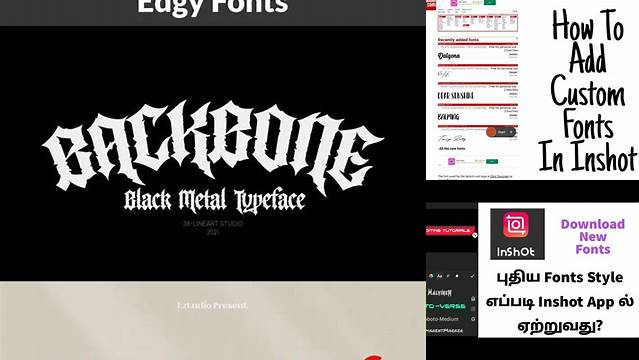
Cool Fonts For InShot: Level Up Your Videos!
InShot is a fantastic mobile video editing app that lets you create stunning content right from your phone. But let's be real, the default fonts can sometimes feel a bit… basic. To truly make your videos stand out, choosing the right fonts for InShot is key. Picking the perfect font can drastically change the mood and impact of your videos. Whether you're going for sleek and modern, fun and playful, or something totally unique, the right typeface is out there waiting to be discovered. So, let’s dive into how to find, add, and use awesome fonts in InShot to give your videos that extra oomph! You want your videos to pop, right? Of course, you do! So let's explore the world of fonts and how they can transform your InShot projects.
Understanding Font Types for Video Editing
Understanding the different font types is crucial when selecting fonts for InShot. Different fonts evoke different feelings and are suitable for various video styles. Serif fonts, like Times New Roman, have small decorative strokes (serifs) at the end of each letter. These often convey a sense of tradition, authority, or elegance. They're great for formal videos or when you want to add a touch of sophistication. Sans-serif fonts, such as Arial or Helvetica, lack these serifs and have a cleaner, more modern look. They're generally easier to read on screens, making them ideal for tutorials, vlogs, or any video where clarity is paramount. Script fonts mimic handwriting and can add a personal, artistic touch. However, use them sparingly as they can be harder to read, especially in smaller sizes. Display fonts are designed to be eye-catching and are perfect for titles or short bursts of text. They come in a wide range of styles, from bold and blocky to quirky and unusual, allowing you to really express your creativity. When choosing fonts for InShot, consider the overall theme of your video and the message you want to convey. The right font can enhance your video's impact and make it more engaging for your audience.
Matching Fonts to Your Video Style
Matching fonts to your video style is an art form that can significantly enhance the overall impact of your InShot videos. The right font can complement your visuals, reinforce your message, and create a cohesive viewing experience. For instance, if you're creating a travel vlog, you might opt for a playful and adventurous font that reflects the excitement of exploration. A handwritten or script font can add a personal touch and make your viewers feel more connected to your journey. On the other hand, if you're producing a professional business presentation, a clean and modern sans-serif font would be a more appropriate choice. It conveys a sense of clarity, authority, and competence. If you're making a cinematic short film, consider using a serif font for titles and credits. Serif fonts often evoke a sense of tradition and sophistication, which can enhance the film's artistic quality. When selecting fonts for InShot, think about the tone and mood of your video. Is it serious, humorous, or informative? Choose fonts that align with these elements. Also, consider the visual elements of your video. Do the colors, graphics, and overall aesthetic complement the font you've chosen? By carefully matching fonts to your video style, you can create a more engaging and visually appealing video that resonates with your audience.
Font Pairing Tips for InShot
Font pairing is a crucial skill to master when working with fonts for InShot. Using multiple fonts in a video can add visual interest and hierarchy, but it's essential to do it right. Poor font pairing can look messy and unprofessional, so here are some tips to help you create harmonious font combinations. The most important rule is to choose fonts that complement each other. Avoid using fonts that are too similar, as this can create a sense of visual monotony. Instead, opt for fonts with contrasting styles. For example, you can pair a bold sans-serif font for headings with a classic serif font for body text. This creates a clear visual distinction between the different elements of your video. Another useful tip is to limit the number of fonts you use. As a general rule, stick to two or three fonts per video. Using too many fonts can make your video look cluttered and confusing. When pairing fonts for InShot, consider the overall tone of your video. If you're creating a fun and playful video, you might use a combination of quirky and whimsical fonts. However, if you're making a professional business video, stick to clean and simple fonts. Use font weights and styles to create visual hierarchy. For example, you can use a bold font for headings and a regular font for body text. You can also use different font sizes to emphasize certain words or phrases. By following these font pairing tips for InShot, you can create visually appealing and professional-looking videos that engage your audience.
Using Bold and Italics Effectively
Using bold and italics effectively can dramatically improve the impact of your fonts for InShot. These simple formatting options can add emphasis, create visual hierarchy, and make your text more readable. Bold text is great for highlighting important keywords, phrases, or calls to action. It draws the viewer's attention to specific parts of your text and makes them stand out. Use it sparingly, though, as too much bold text can be overwhelming and lose its impact. Italic text, on the other hand, is often used to add emphasis to certain words or phrases, to indicate titles of books or movies, or to distinguish foreign words. It can also be used to create a sense of elegance or sophistication. When using bold and italics in fonts for InShot, consider the overall tone of your video. If you're creating a serious or professional video, use these formatting options sparingly and only when necessary. However, if you're making a fun or playful video, you can be more liberal with your use of bold and italics. It's also important to maintain consistency. Use the same formatting options throughout your video to create a cohesive and professional look. Avoid using bold and italics randomly, as this can make your text look messy and unprofessional. By using bold and italics effectively, you can enhance the readability and visual appeal of your fonts for InShot, making your videos more engaging and impactful.
Choosing the Right Font Size in InShot
Choosing the right font size is crucial when using fonts for InShot. Text that is too small can be difficult to read, while text that is too large can be overwhelming and distracting. The ideal font size depends on several factors, including the screen size, the font style, and the amount of text you're displaying. As a general rule, use a font size that is large enough to be easily read on a mobile device, but not so large that it dominates the screen. When selecting fonts for InShot, consider the context in which your text will be displayed. If you're creating a title or heading, you can use a larger font size to make it stand out. However, if you're displaying a lot of text, use a smaller font size to improve readability. It's also important to consider the aspect ratio of your video. If you're creating a video for a specific platform, such as Instagram or TikTok, make sure your text is properly sized for that platform's aspect ratio. You can use InShot's preview feature to see how your text will look on different devices and screen sizes. Experiment with different font sizes until you find one that looks good and is easy to read. Don't be afraid to adjust the font size as needed to optimize the readability of your text. By choosing the right font size, you can ensure that your text is clear, legible, and visually appealing, enhancing the overall impact of your fonts for InShot.
Font Color Considerations for InShot Videos
Font color is a critical consideration when selecting fonts for InShot videos. The color of your text can significantly impact its readability and visual appeal. Choosing the right font color can make your text stand out and complement your video's overall aesthetic. Conversely, the wrong color can make your text difficult to read and detract from the viewing experience. When choosing fonts for InShot, consider the background color of your video. If your video has a dark background, use a light-colored font to create contrast and improve readability. Conversely, if your video has a light background, use a dark-colored font. Avoid using colors that are too similar to the background, as this can make your text blend in and become difficult to read. Also, consider the color palette of your video. Choose font colors that complement the other colors in your video to create a cohesive and visually appealing look. You can use InShot's color picker tool to select colors that match your video's theme. Experiment with different font colors until you find one that looks good and is easy to read. Don't be afraid to use bold and contrasting colors to make your text stand out. However, avoid using too many colors, as this can make your video look cluttered and unprofessional. By carefully considering font color considerations for InShot videos, you can ensure that your text is clear, legible, and visually appealing, enhancing the overall impact of your video.
Kerning and Tracking in InShot Text
Kerning and tracking are essential typographic adjustments that can significantly enhance the visual appeal of your fonts for InShot. Kerning refers to the spacing between individual letters, while tracking refers to the overall spacing between all the letters in a word or phrase. Adjusting these settings can improve the readability and aesthetic of your text. When using fonts for InShot, pay attention to the kerning and tracking. Some fonts may have poor kerning, which can make the text look uneven or unbalanced. InShot's text editing tools allow you to adjust the kerning to create a more visually pleasing result. Similarly, adjusting the tracking can improve the readability of your text, especially when using smaller font sizes. If your text looks too crowded or spaced out, adjust the tracking to create a more comfortable reading experience. Experiment with different kerning and tracking settings until you find one that looks good and is easy to read. Don't be afraid to fine-tune these settings to achieve the desired look. However, avoid over-adjusting the kerning or tracking, as this can make your text look unnatural or distorted. The goal is to create a subtle and balanced look that enhances the readability and aesthetic of your text. By mastering kerning and tracking, you can take your fonts for InShot to the next level and create professional-looking videos.
Using Text Animations in InShot with Fonts
Text animations can add a dynamic and engaging element to your fonts for InShot. InShot offers a variety of text animation options that can bring your text to life and capture your audience's attention. From simple fade-ins to more complex spinning and bouncing effects, text animations can enhance the visual appeal of your videos. When using fonts for InShot, consider incorporating text animations to add a touch of creativity and excitement. Experiment with different animation styles to find one that complements your video's theme and message. Use text animations to highlight important keywords, emphasize key points, or create a sense of movement and energy. However, avoid using too many animations, as this can be distracting and overwhelming. The goal is to use text animations sparingly and strategically to enhance the overall impact of your video. InShot's text animation tools are easy to use and allow you to customize the speed, direction, and intensity of the animations. You can also combine different animations to create unique and eye-catching effects. By mastering text animations, you can transform your fonts for InShot into a dynamic and engaging element that captivates your audience and elevates your videos to the next level.
Creating Text Backgrounds in InShot
Creating text backgrounds in InShot can significantly enhance the readability and visual appeal of your fonts for InShot. A well-designed text background can make your text stand out, improve its legibility, and complement your video's overall aesthetic. InShot offers a variety of options for creating text backgrounds, including solid colors, gradients, and images. When using fonts for InShot, consider adding a text background to make your text more visible and legible. Choose a background color that contrasts with your font color to create a clear visual distinction. For example, if you're using a light-colored font, use a dark-colored background. Conversely, if you're using a dark-colored font, use a light-colored background. You can also use gradients to create a more visually interesting text background. Experiment with different gradient styles and color combinations to find one that complements your video's theme. If you want to add a personal touch to your text background, you can use an image as the background. Choose an image that is relevant to your video's topic and that complements your font style. InShot's text background tools are easy to use and allow you to customize the opacity, blur, and size of the background. You can also add a border to your text background to further enhance its visual appeal. By mastering text backgrounds, you can transform your fonts for InShot into a visually stunning and engaging element that captures your audience's attention.
Font Licensing and Usage Rights for InShot
Understanding font licensing and usage rights is crucial when using fonts for InShot, especially for commercial purposes. Font licenses dictate how you can legally use a font, including whether you can use it for personal or commercial projects, whether you can modify it, and whether you need to give credit to the font designer. When selecting fonts for InShot, always check the font license to ensure that you are complying with the terms of use. Many free fonts are licensed for personal use only, which means you cannot use them for any project that generates revenue. If you plan to use a font for commercial purposes, make sure you have the appropriate license. Some font foundries offer commercial licenses for a fee, while others offer free commercial licenses under certain conditions. Always read the fine print and understand the terms of the license before using a font in your InShot videos. If you are unsure about the licensing terms of a font, it's always best to err on the side of caution and contact the font designer or foundry for clarification. Using a font without the proper license can result in legal issues and financial penalties. By understanding font licensing and usage rights for InShot, you can ensure that you are using fonts legally and ethically, protecting yourself from potential legal problems.
Font Effects to Enhance Your InShot Text
Font effects can add a creative and eye-catching touch to your fonts for InShot. InShot offers a range of font effects that can transform your text and make it stand out. From shadows and outlines to glows and reflections, font effects can enhance the visual appeal of your videos and capture your audience's attention. When using fonts for InShot, consider experimenting with different font effects to add a touch of personality and style. Shadows can create depth and dimension, making your text appear more three-dimensional. Outlines can define your text and make it more visible against busy backgrounds. Glows can add a soft and ethereal effect, while reflections can create a sense of realism and sophistication. InShot's font effect tools are easy to use and allow you to customize the color, size, and intensity of the effects. You can also combine different effects to create unique and eye-catching results. However, avoid using too many effects, as this can be distracting and overwhelming. The goal is to use font effects sparingly and strategically to enhance the overall impact of your video. By mastering font effects to enhance your InShot text, you can transform your text into a visually stunning and engaging element that captivates your audience and elevates your videos to the next level.
Importing Fonts from Creative Cloud to InShot
Importing fonts from Creative Cloud to InShot can greatly expand your font selection and provide access to a wide range of high-quality fonts. If you're a Creative Cloud subscriber, you can easily access and use your Adobe Fonts in InShot, giving you a seamless and integrated design workflow. To import fonts from Creative Cloud to InShot, you'll first need to activate the fonts in your Creative Cloud account. Once the fonts are activated, they should automatically sync to your device. Next, open InShot and go to the text editing tool. Add some text to your video and select the font option. You should see an option to import or add a custom font. Tap on this option and navigate to the location where your Creative Cloud fonts are stored on your device. Select the font you want to use, and InShot will automatically install it. Now you can use your Creative Cloud fonts in your videos! It's that easy! By importing fonts from Creative Cloud to InShot, you can take advantage of the vast library of Adobe Fonts and create videos that are both visually stunning and professionally designed. This seamless integration allows you to maintain consistency across your design projects and create a cohesive brand identity.
Best Font Combinations for Titles and Lower Thirds
Choosing the best font combinations for titles and lower thirds in InShot is essential for creating professional-looking videos. Titles and lower thirds are crucial elements that provide information, context, and branding, so it's important to choose fonts that are legible, visually appealing, and complementary. When selecting fonts for titles and lower thirds, consider using a combination of a bold, eye-catching font for the title and a clean, readable font for the subtitle or lower third text. This creates a clear visual hierarchy and makes it easy for viewers to understand the information being presented. Some popular font combinations for titles and lower thirds include: Montserrat (bold) and Open Sans (regular), Bebas Neue (bold) and Roboto (regular), and Playfair Display (bold) and Lato (regular). These combinations offer a balance of style and readability, ensuring that your titles and lower thirds look professional and engaging. When pairing fonts for titles and lower thirds in InShot, make sure to consider the overall tone and style of your video. Choose fonts that complement your video's aesthetic and reinforce your brand identity. Also, pay attention to font size, color, and spacing to ensure that your titles and lower thirds are easy to read and visually appealing. By carefully selecting font combinations for titles and lower thirds, you can create videos that are both informative and visually stunning.
Creating a Brand Style Guide for Fonts in InShot
Creating a brand style guide for fonts in InShot is essential for maintaining consistency and professionalism in your video content. A brand style guide outlines the specific fonts, colors, and formatting guidelines that should be used across all of your videos, ensuring that your brand is consistently represented and easily recognizable. When creating a brand style guide for fonts in InShot, start by selecting one or two primary fonts that will be used for titles, headings, and body text. Choose fonts that reflect your brand's personality and values, and that are legible and visually appealing. Once you've selected your primary fonts, define the specific font sizes, colors, and spacing that should be used for different elements of your videos, such as titles, lower thirds, and captions. Include examples of how the fonts should be used in different contexts, and provide clear guidelines for font pairing and formatting. In addition to fonts, your brand style guide should also include guidelines for color palettes, logo usage, and overall visual style. This will help ensure that all of your videos are consistent with your brand identity and that your audience can easily recognize your content. By creating a brand style guide for fonts in InShot, you can streamline your video creation process, maintain consistency across all of your videos, and strengthen your brand identity.
Using Free InShot Templates with Custom Fonts
Using free InShot templates with custom fonts can be a great way to create professional-looking videos quickly and easily. InShot offers a variety of free templates that you can customize with your own text, images, and video clips. By adding your own custom fonts, you can personalize these templates and make them truly unique to your brand. When using free InShot templates with custom fonts, start by selecting a template that aligns with your video's theme and message. Once you've selected a template, replace the placeholder text with your own content. Use your custom fonts to create titles, headings, and captions that reflect your brand's personality and style. Pay attention to font size, color, and spacing to ensure that your text is legible and visually appealing. In addition to customizing the text, you can also replace the placeholder images and video clips with your own content. Use high-quality images and video clips that are relevant to your video's topic. By customizing the text, images, and video clips in InShot's free templates, you can create professional-looking videos that are both visually stunning and uniquely branded. This is a great way to save time and effort while still creating high-quality video content that engages your audience. Using free InShot templates with custom fonts allows for efficient and effective video creation.
Troubleshooting Font Issues in InShot
Troubleshooting font issues in InShot can be frustrating, but with a systematic approach, you can usually resolve most problems. Common font issues in InShot include fonts not appearing, fonts displaying incorrectly, or fonts not being compatible with the app. If you're experiencing font issues in InShot, start by checking that the font file is properly installed on your device. Make sure that the font file is in a compatible format (e.g., .ttf or .otf) and that it's located in a folder that InShot can access. If the font is installed correctly but still not appearing in InShot, try restarting the app or your device. This can often resolve temporary glitches or conflicts that may be preventing the font from loading. If the font is displaying incorrectly (e.g., distorted or missing characters), try clearing InShot's cache and data. This can often resolve issues caused by corrupted data or outdated settings. If none of these steps resolve the issue, try uninstalling and reinstalling InShot. This can ensure that you have the latest version of the app and that all of its files are properly installed. By following these troubleshooting steps, you can usually resolve most font issues in InShot and get back to creating beautiful videos. Always ensure compatibility and proper installation for the best results.
Best Font Practices for Social Media Videos
Adhering to the best font practices for social media videos is crucial for ensuring that your content is engaging, accessible, and visually appealing. Social media videos have unique constraints, such as small screen sizes and short attention spans, so it's important to choose fonts that are optimized for these conditions. When selecting fonts for social media videos, prioritize legibility and readability. Choose fonts that are clear, simple, and easy to read on small screens. Avoid using overly decorative or complex fonts that may be difficult to decipher. Use a font size that is large enough to be easily read on mobile devices, but not so large that it dominates the screen. As a general rule, use a font size that is at least 24 pixels. Choose font colors that contrast with the background to create a clear visual distinction. Avoid using colors that are too similar to the background, as this can make your text blend in and become difficult to read. Use bold and italics sparingly to emphasize important keywords or phrases. However, avoid using too much formatting, as this can make your text look cluttered and unprofessional. By following these best font practices for social media videos, you can create content that is both visually stunning and easy to understand, maximizing its impact and reach.
Optimizing Font Selection for Mobile Viewing
Optimizing font selection for mobile viewing is paramount when creating videos for platforms like InShot, where the majority of viewers will be watching on their smartphones. Mobile screens present unique challenges, such as smaller sizes and varying resolutions, which can impact the legibility and visual appeal of your text. When selecting fonts for InShot, prioritize fonts that are specifically designed for mobile viewing. These fonts typically have wider letterforms, larger x-heights, and generous spacing, making them easier to read on small screens. Avoid using fonts that are too narrow, condensed, or decorative, as these can be difficult to decipher on mobile devices. Use a font size that is large enough to be easily read without zooming, but not so large that it takes up too much screen space. As a general rule, use a font size that is at least 16 pixels for body text and 24 pixels for headings. Choose font colors that contrast with the background to create a clear visual distinction. Avoid using colors that are too similar to the background, as this can make your text blend in and become difficult to read. Test your font selection for mobile viewing on a variety of devices and screen sizes to ensure that it looks good and is easy to read across different platforms. By optimizing your font selection for mobile viewing, you can create videos that are accessible, engaging, and visually appealing to a wide audience.
Creating Kinetic Typography with InShot Fonts
Creating kinetic typography with InShot fonts is a dynamic and engaging way to add visual interest and emphasis to your videos. Kinetic typography involves animating text to move and change in a way that enhances the meaning and impact of the words. With InShot's text animation tools, you can easily create stunning kinetic typography effects that capture your audience's attention. When creating kinetic typography with InShot fonts, start by selecting a font that is legible and visually appealing. Choose a font that complements your video's theme and message. Next, use InShot's text animation tools to animate the text in a way that enhances the meaning of the words. Experiment with different animation styles, such as fade-ins, slide-ins, and rotations, to create unique and eye-catching effects. Pay attention to the timing and pacing of the animations to ensure that they are synchronized with the audio and video content. Use kinetic typography to highlight important keywords, emphasize key points, or create a sense of movement and energy. However, avoid using too many animations, as this can be distracting and overwhelming. The goal is to use kinetic typography sparingly and strategically to enhance the overall impact of your video. By mastering creating kinetic typography with InShot fonts, you can transform your text into a dynamic and engaging element that captivates your audience and elevates your videos to the next level.
Using Text Templates to Streamline Font Choices
Using text templates to streamline font choices can significantly speed up your video editing workflow in InShot and ensure consistency across your projects. Text templates are pre-designed text layouts that include specific fonts, colors, and formatting, allowing you to quickly add professional-looking text to your videos. When using text templates to streamline font choices in InShot, start by creating a library of text templates that you can easily access and reuse. Design templates for different types of text elements, such as titles, lower thirds, captions, and end screens. Choose fonts that are legible, visually appealing, and consistent with your brand's style guide. Save your text templates in a format that is easy to import into InShot. When you're editing a video, simply import the text template that you want to use and customize the text to fit your content. This saves you time and effort by eliminating the need to manually select fonts, colors, and formatting for each text element. Using text templates to streamline font choices also helps to ensure consistency across your videos, creating a more professional and cohesive brand image. By using text templates, you can maintain a consistent look and feel in all of your videos, strengthening your brand identity and making your content more recognizable.
Adding Stroke Effects to Fonts in InShot
Adding stroke effects to fonts in InShot can significantly enhance their visibility and visual appeal, especially when working with videos that have busy or distracting backgrounds. A stroke effect, also known as an outline, adds a border around the text, making it stand out and easier to read. When adding stroke effects to fonts in InShot, start by selecting the text element that you want to modify. Open the text editing tool and look for the option to add a stroke or outline. Choose a stroke color that contrasts with both the font color and the background color to create a clear visual distinction. Adjust the stroke width to create the desired effect. A thicker stroke will make the text more prominent, while a thinner stroke will be more subtle. Experiment with different stroke colors and widths to find the combination that works best for your video. Be careful not to overdo the stroke effect, as this can make the text look cluttered and unprofessional. The goal is to enhance the visibility of the text without distracting from the overall video. By adding stroke effects to fonts in InShot, you can ensure that your text is legible and visually appealing, even in videos with challenging backgrounds. This is a simple but effective technique that can significantly improve the quality of your video content.
The Impact of Font Choice on Video Engagement
The impact of font choice on video engagement is often underestimated, but selecting the right fonts can significantly influence how viewers perceive and interact with your video content. Fonts play a crucial role in conveying the tone, message, and overall aesthetic of your video, and choosing the wrong fonts can detract from the viewing experience. When selecting fonts for InShot, consider your target audience and the message you want to convey. Choose fonts that are legible, visually appealing, and appropriate for your video's theme and style. A playful or whimsical font may be suitable for a fun and lighthearted video, while a clean and professional font may be more appropriate for a business or educational video. Use fonts to create visual hierarchy and guide viewers' attention. Use larger and bolder fonts for titles and headings to make them stand out, and use smaller and simpler fonts for body text to improve readability. Use font colors, sizes, and styles to emphasize important keywords or phrases. However, avoid using too many fonts or formatting options, as this can make your video look cluttered and unprofessional. By carefully considering the impact of font choice on video engagement, you can create videos that are visually appealing, easy to understand, and more likely to capture and retain your audience's attention.
Choosing Fonts for Different Video Platforms (TikTok, Instagram, YouTube)
Choosing fonts for different video platforms (TikTok, Instagram, YouTube) requires a tailored approach to ensure optimal viewing experience and engagement on each platform. Each platform has its own unique characteristics, audience demographics, and viewing habits, so it's important to select fonts for InShot that are optimized for these specific conditions. For TikTok, where videos are short and attention spans are limited, prioritize fonts that are bold, eye-catching, and easy to read on small screens. Use a larger font size and choose font colors that contrast with the background to ensure maximum visibility. For Instagram, where videos are often viewed on mobile devices, prioritize fonts that are legible and visually appealing on smaller screens. Choose fonts that are clean, simple, and optimized for mobile viewing. For YouTube, where videos can be longer and viewed on a variety of devices, prioritize fonts that are legible and professional-looking. Choose fonts that are clean, simple, and easy to read on both mobile and desktop screens. Regardless of the platform, it's important to maintain consistency in your font choices across all of your videos to create a cohesive brand image. By choosing fonts for different video platforms that are optimized for each platform's unique characteristics, you can create videos that are more engaging, accessible, and visually appealing to your target audience.
Incorporating Animated Fonts in InShot
Incorporating animated fonts in InShot can significantly enhance the visual appeal and dynamism of your videos, adding a touch of creativity and sophistication that captures your audience's attention. Animated fonts, also known as kinetic typography, involve animating the letters and characters of a font to create movement and visual interest. With InShot's text animation tools, you can easily create stunning animated font effects that bring your text to life. When incorporating animated fonts in InShot, start by selecting a font that is legible and visually appealing. Choose a font that complements your video's theme and message. Next, use InShot's text animation tools to animate the font in a way that enhances the meaning of the words. Experiment with different animation styles, such as fade-ins, slide-ins, rotations, and bounces, to create unique and eye-catching effects. Pay attention to the timing and pacing of the animations to ensure that they are synchronized with the audio and video content. Use animated fonts to highlight important keywords, emphasize key points, or create a sense of movement and energy. However, avoid using too many animations, as this can be distracting and overwhelming. The goal is to use animated fonts sparingly and strategically to enhance the overall impact of your video. By mastering incorporating animated fonts in InShot, you can transform your text into a dynamic and engaging element that captivates your audience and elevates your videos to the next level.